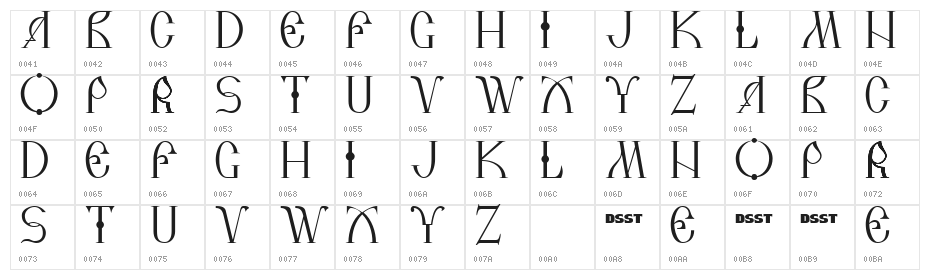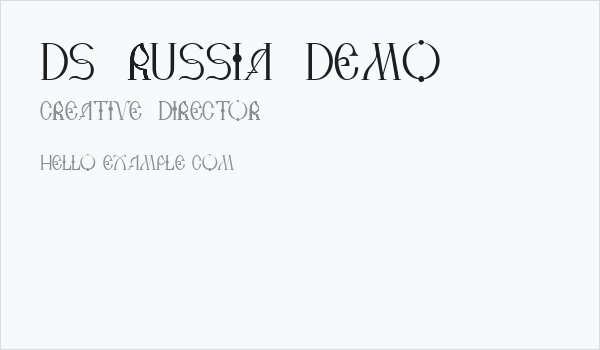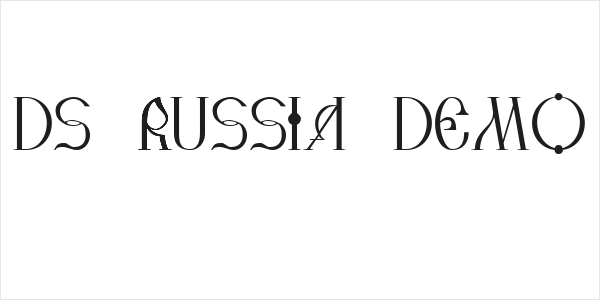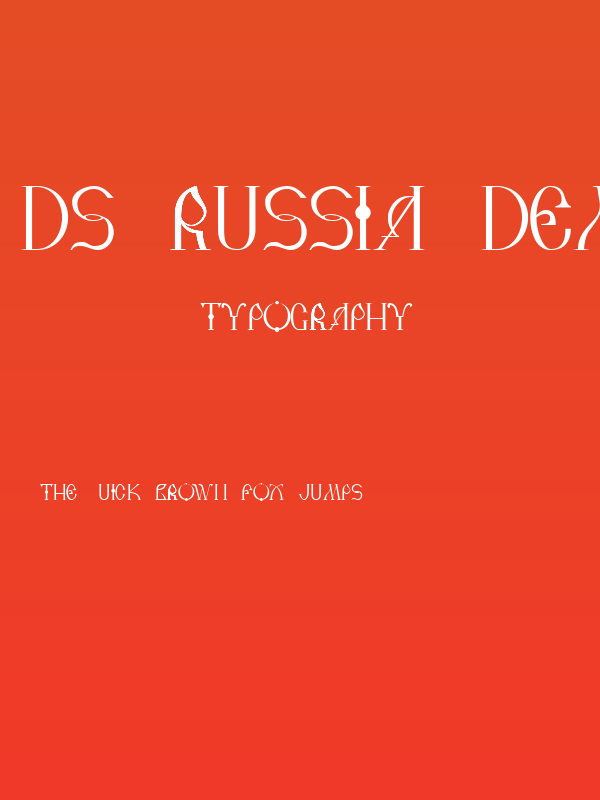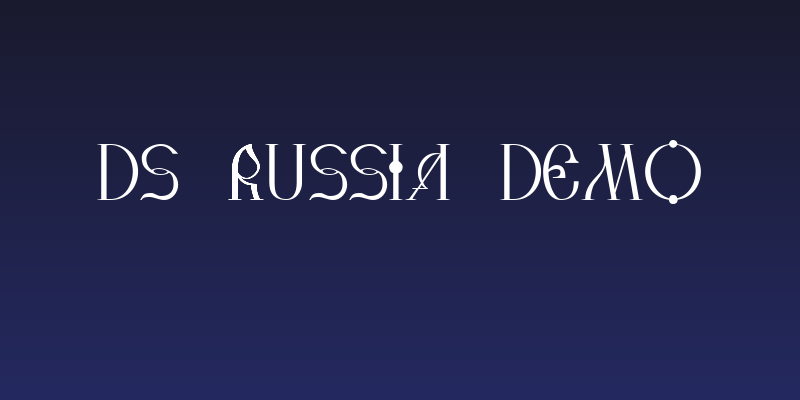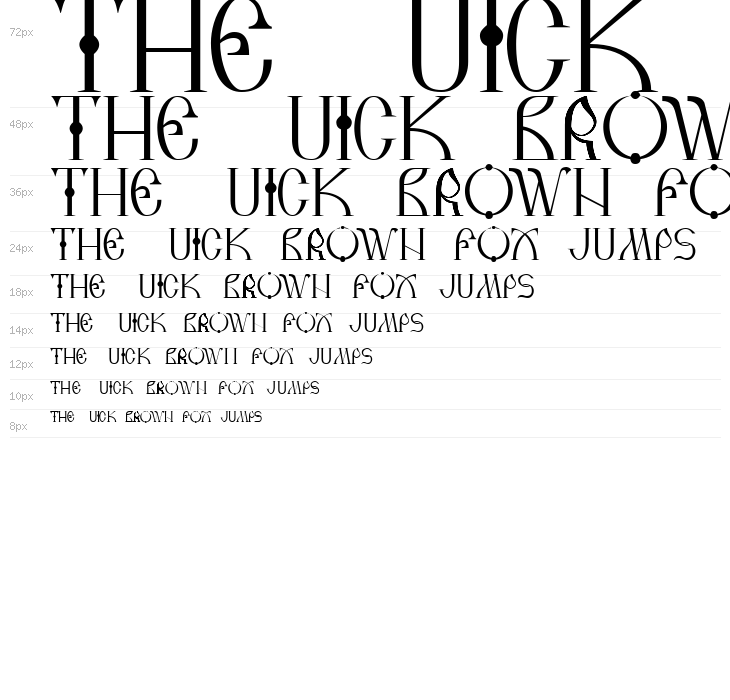
DS Russia Demo Font
DS Russia Demo Description
This font features a unique and artistic design with a blend of modern and decorative elements. The characters are crafted with a high contrast in stroke thickness, giving them a bold and striking appearance. The uppercase letters exhibit a playful use of geometric shapes and lines, creating a sense of movement and dynamism. The overall style is reminiscent of Art Deco influences, with a contemporary twist. The font's distinctive character shapes make it ideal for creative projects that require a touch of elegance and flair.